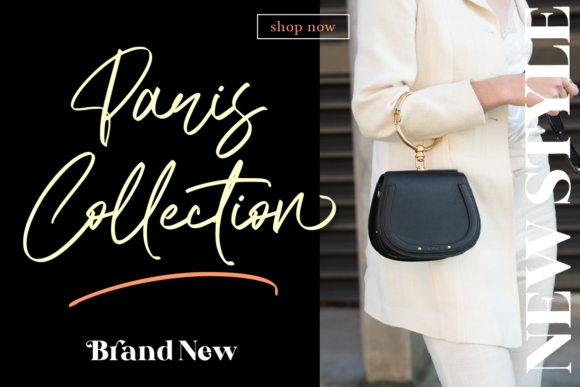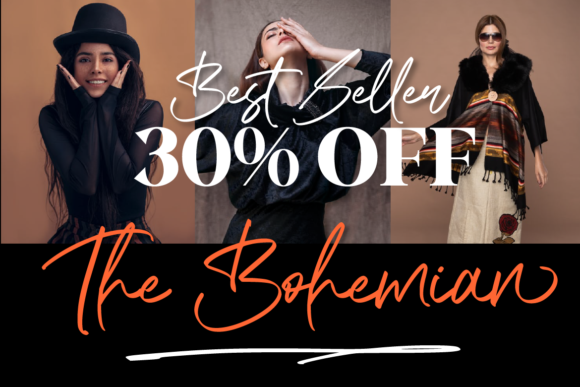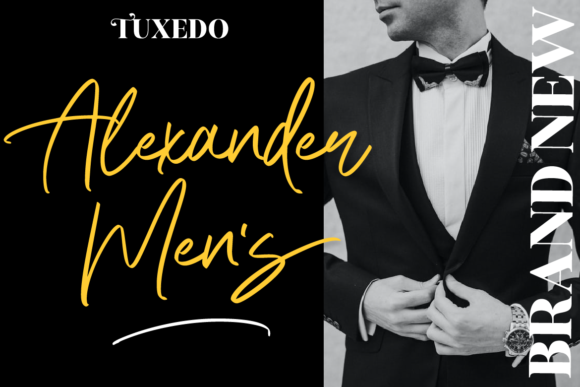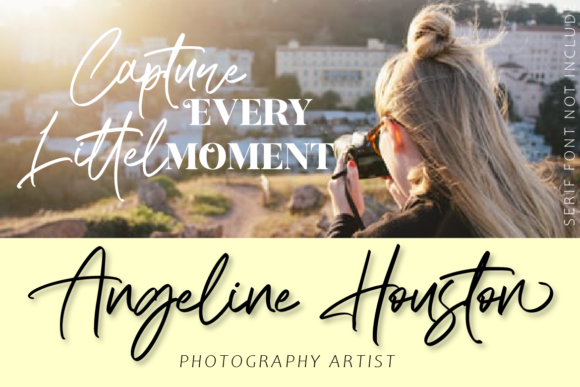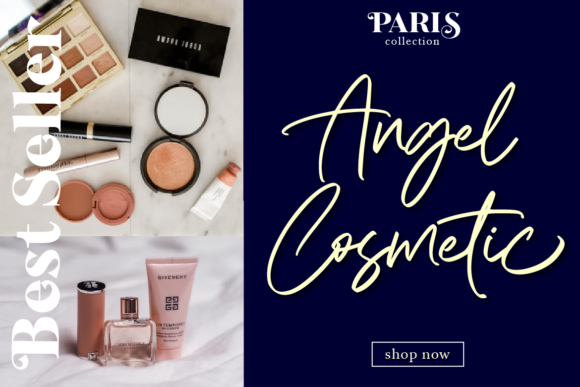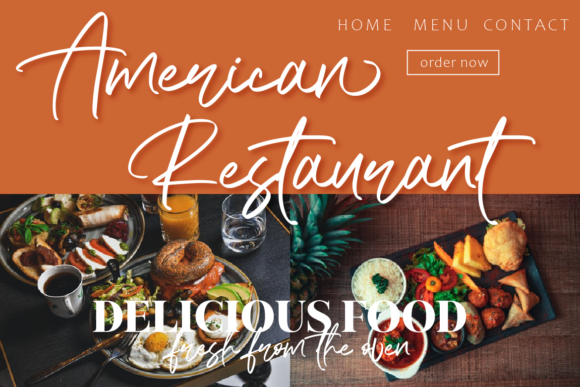
Introduction to Maitland Font
As designers, we’ve all been there – staring at a blank canvas, trying to find the perfect font to bring our creative project to life. And then, like a breath of fresh air, we stumble upon it – the perfect script font that sets the tone for our design. For many, that font is Maitland Font, a beautiful, high-quality handwritten font that’s as versatile as it is romantic.
Whether you’re working on a greeting card, a wedding invitation, or a headline that demands attention, Maitland Font is the perfect design resource to elevate your project. With its PUA encoding, you can access all of the beautiful glyphs and swashes with ease, giving you the freedom to get creative and experiment with different designs.
Key Features of Maitland Font
- High-quality, elegant design perfect for a variety of creative projects, from invitations to digital art.
- Designed with a focus on legibility and readability, making it ideal for use in digital and print media.
- Unique, hand-drawn aesthetic sets it apart from more generic fonts, adding a touch of personality to any creative project.
Honest Review: Maitland Font
I recently stumbled upon the Maitland Font while searching for a design resource to enhance my creative project. The Maitland Font offers a high quality, elegant script font that is perfect for adding a touch of sophistication to any design.
- ✨ What works well: The Maitland Font has a transparent background, making it easy to layer over other design elements without any background noise.
- ✨ What works well: The font’s elegant script design makes it ideal for invitations, wedding designs, and other creative projects where a touch of elegance is required.
- ⚠️ Limitations: The Maitland Font is a script font, which can make it difficult to read at small font sizes.
- ⚠️ Limitations: The font may not be suitable for designs that require a bold, sans-serif font.
Overall, I’m impressed with the Maitland Font’s high quality and elegant design. While it may have some limitations, it’s an excellent resource for designers looking for a free, high-quality script font to enhance their creative projects.
The Maitland Font is ideal for:
- Creating invitations and event materials
- Designing logos and branding materials
- Developing marketing materials and advertisements
- Adding a touch of elegance to your website or blog